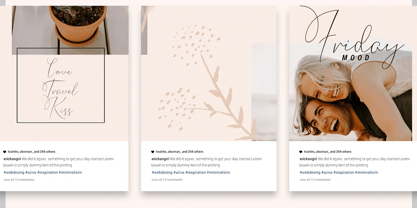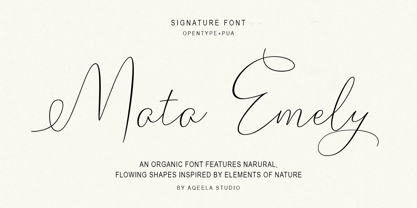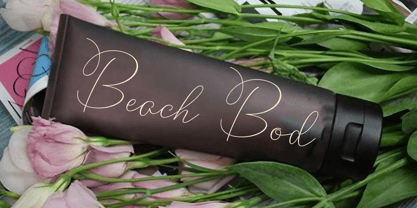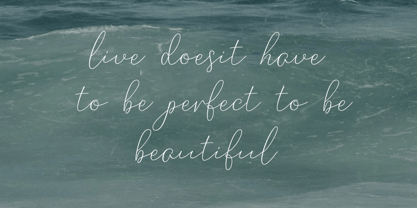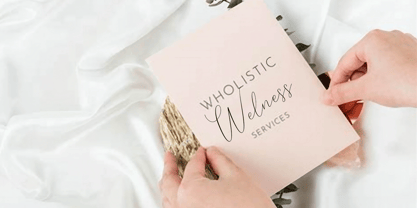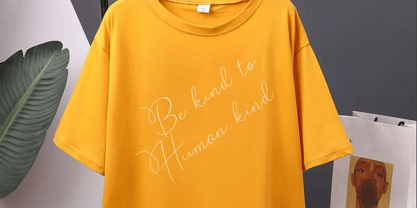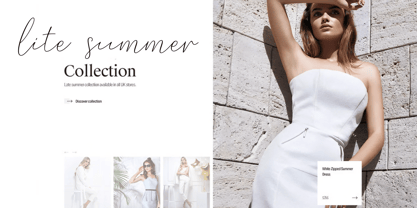
Mata Emely
by Aqeela Studio
The Mata Emely Font Family was designed by Muhammad Nasir and published by Aqeela Studio. Mata Emely contains 1 styles. More about this family
Mata Emely is a thin and elegant handwritten font. Fall in love with its incredibly versatile style and use it to create gorgeous wedding invitations, beautiful stationary art, eye-catching social media posts and more!